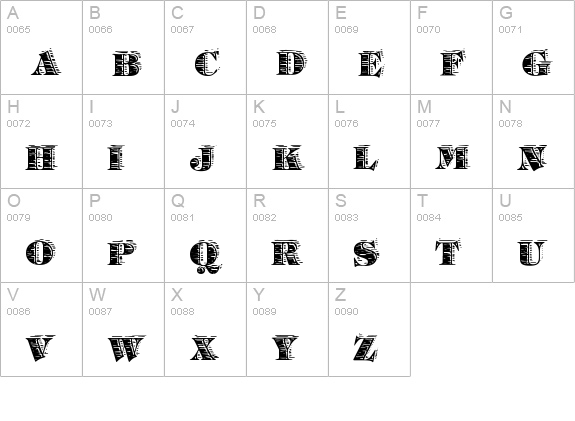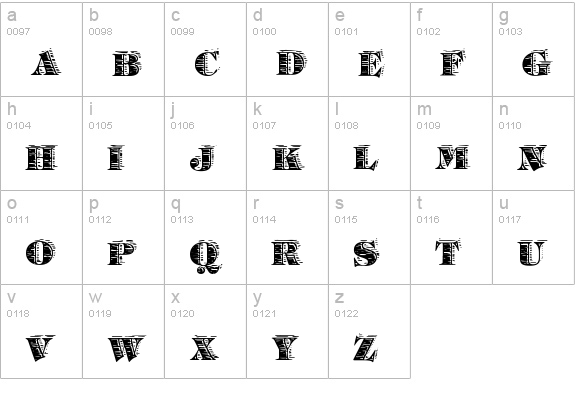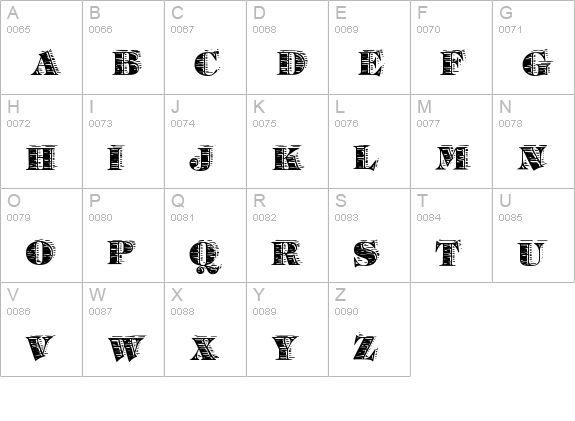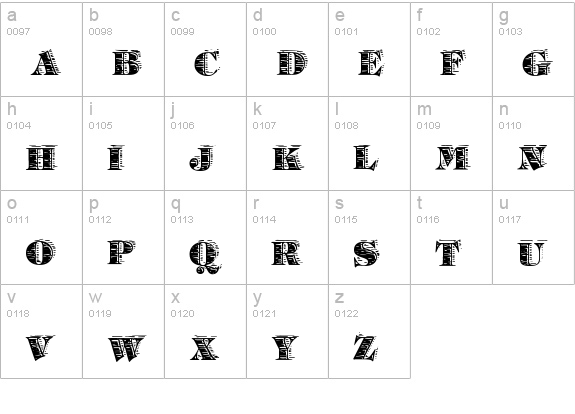
Barrelhouse All Caps Font Details
Barrelhouse All Caps font is a bold and striking typeface that exudes confidence and personality. Its distinct design features thick, uppercase letters that command attention and make a statement. Perfect for headlines, logos, and other display purposes, Barrelhouse All Caps adds a touch of modern flair to any project. The best part? Barrelhouse All Caps font is available for free download at FontsMarket.com. This means you can easily add this eye-catching font to your collection without any cost. Don't miss out on this amazing opportunity to enhance your designs with the unique style of Barrelhouse All Caps font. Download it now and let your creativity shine!